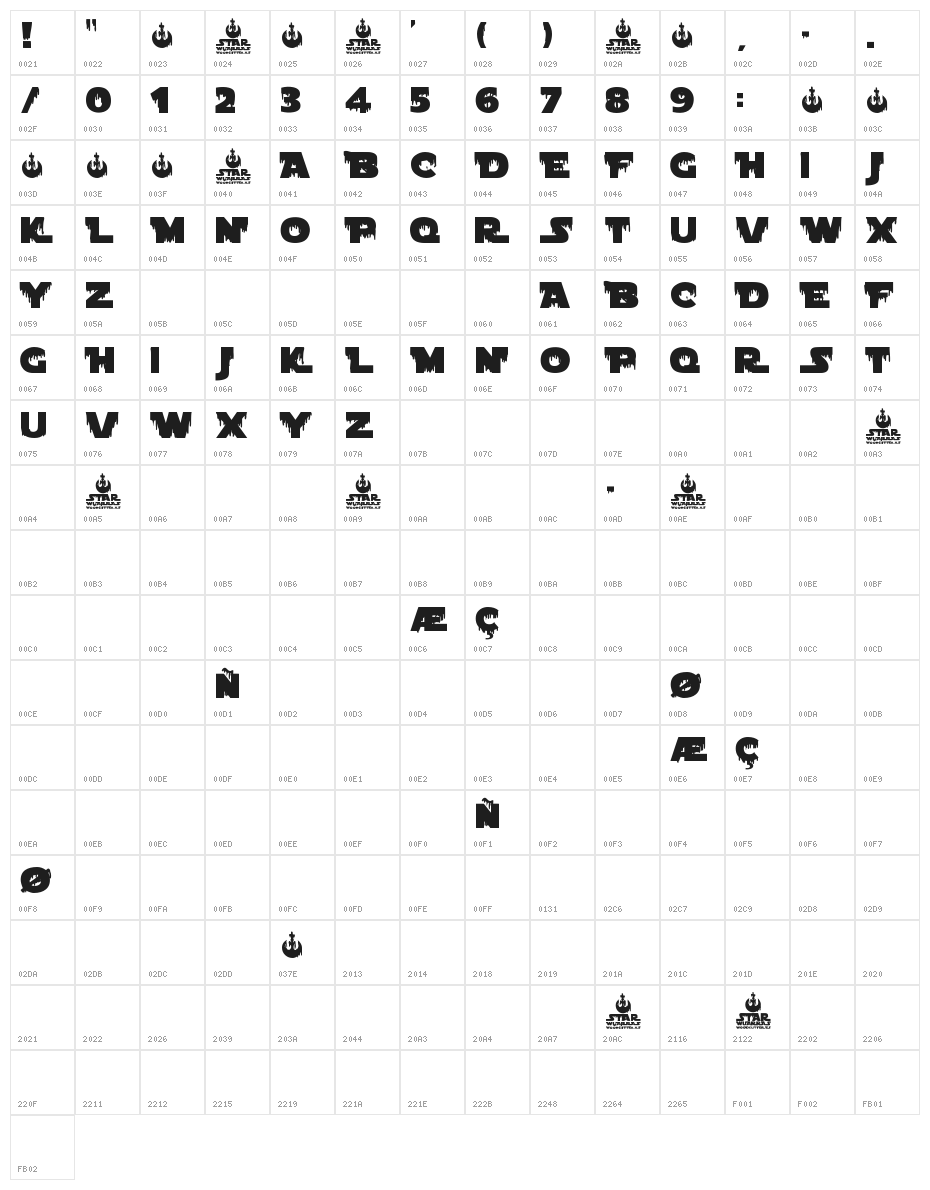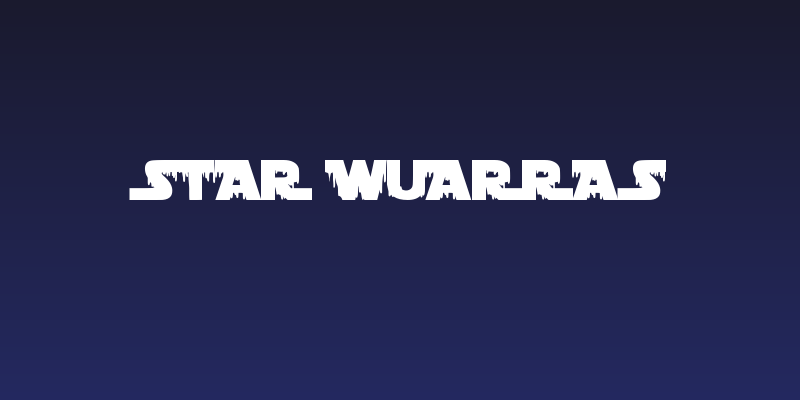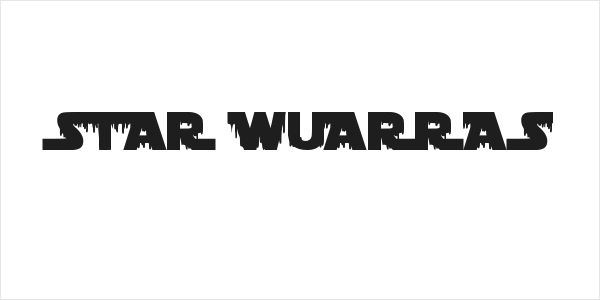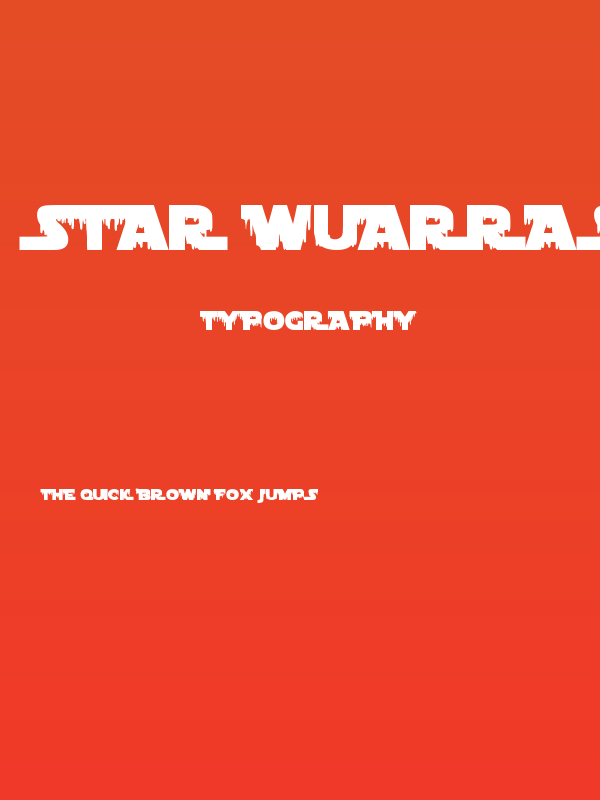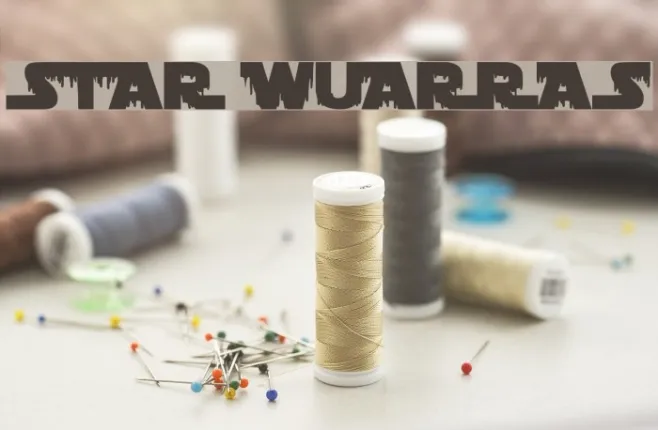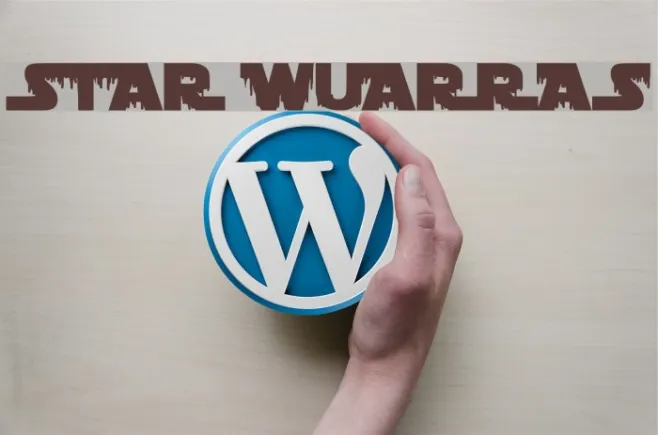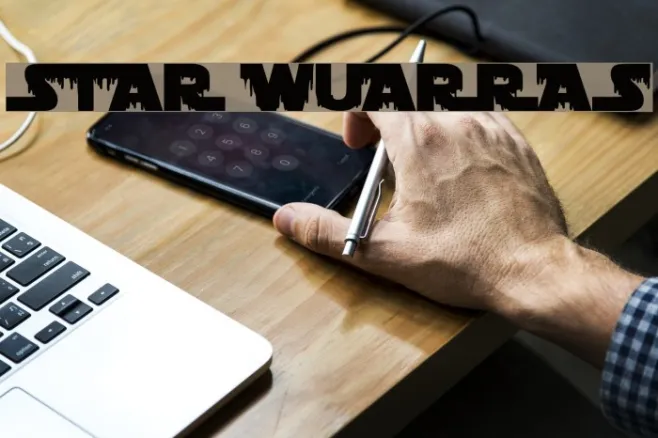
Star Wuarras Font
Star Wuarras Description
This font features a bold and dramatic style with a futuristic and sci-fi aesthetic. The characters are designed with sharp, angular edges and a unique distressed effect that gives them a rugged, battle-worn appearance. The uppercase and lowercase letters maintain a consistent style, while the numbers and special characters complement the overall theme. This font is ideal for projects that require a strong, impactful visual presence, such as movie posters, video game titles, or themed event promotions. The design captures attention with its high contrast and bold weight, making it suitable for headlines and logos.
| Overall Style | Futuristic, Sci-Fi, Decorative |
| Proposed Projects | Ideal for movie posters, video game titles, themed events, and promotional materials. |